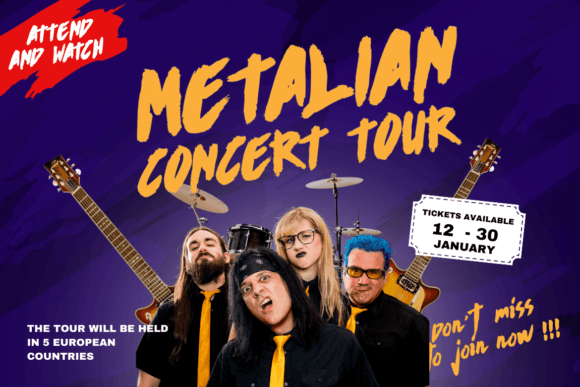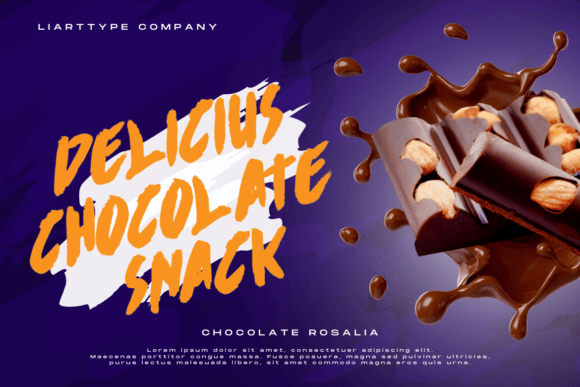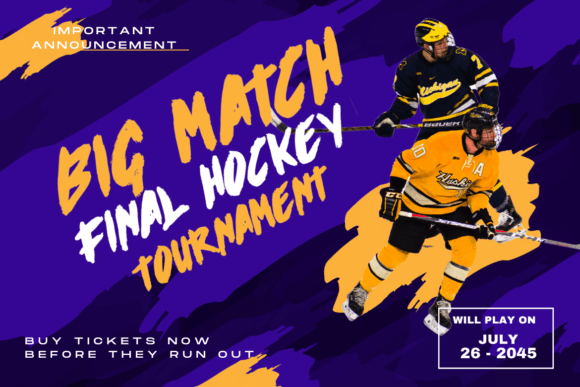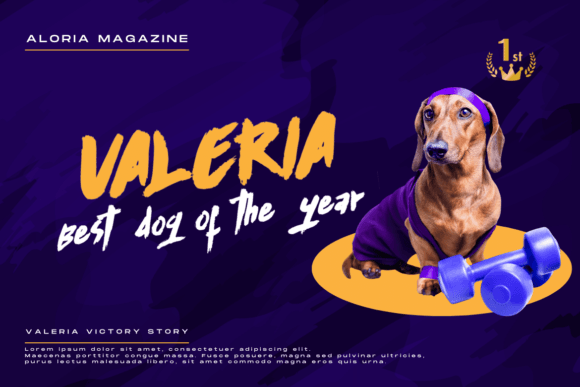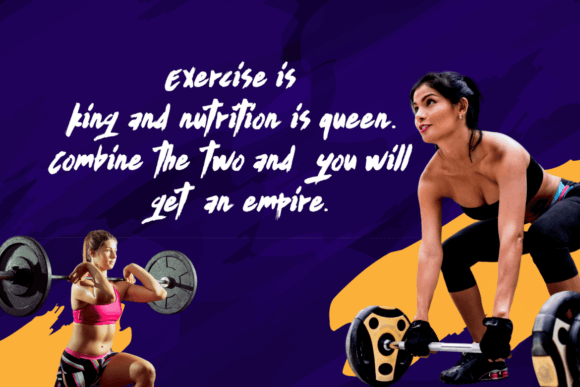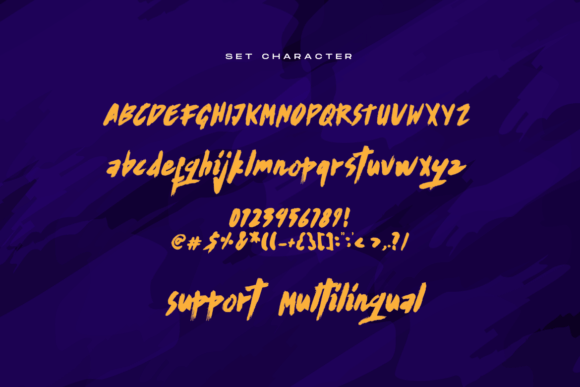
Introduction to Regratte Font
Have you ever found yourself scribbling down a motivational quote on a whiteboard, only to have it erase in an instant? That fleeting moment of creativity can be a powerful spark for your next design project. For designers, it’s all about capturing that essence and turning it into a lasting piece of art. Enter the Regratte Font, a beautiful handwritten brush script font that brings the organic feel of marker writing to your digital designs.
This versatile font is perfect for greeting cards, invitations, and motivational quotes, allowing you to express your best messages with a personal touch. With its transparent background and high-quality design, the Regratte Font is an invaluable resource for any creative project.
- Unique, hand-drawn style that adds a personal touch to any design project.
Honest Review: Regratte Font
I recently had the chance to work with the Regratte Font, and I must say it’s been a great addition to my design resource library. This high-quality font is perfect for any creative project that requires a unique touch.
- ✨ Clean and modern design that’s easy to read
- ⚠️ Limited character set, which may not be suitable for large bodies of text
- ⚠️ Not ideal for use in situations where a bold font is required
Overall, I’m impressed with the Regratte Font and would definitely recommend it for any creative project. Its unique design and high-quality typography make it a valuable addition to any design resource library. With a few limitations in mind, I’m confident that designers will find this font to be a great asset in their work.
The Regratte Font is perfect for a variety of creative projects, including graphic design, digital art, and typography. It’s also a great resource for designers who want to create visually appealing text-based designs with a transparent background.